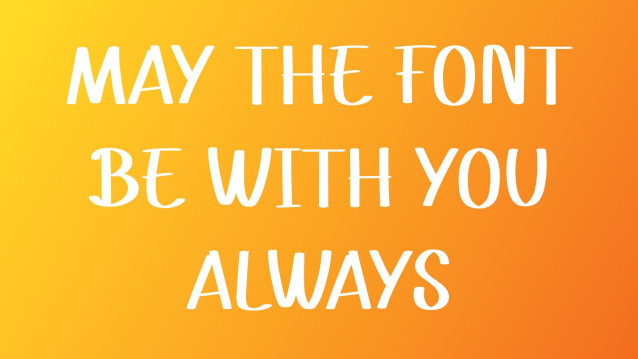
Champion Cartoon Font
Champion Cartoon Font a sweet and friendly handwritten font. Cute and fun, this font is ideal for writing wedding invitations, cards, or any other design that might need a fun touch!